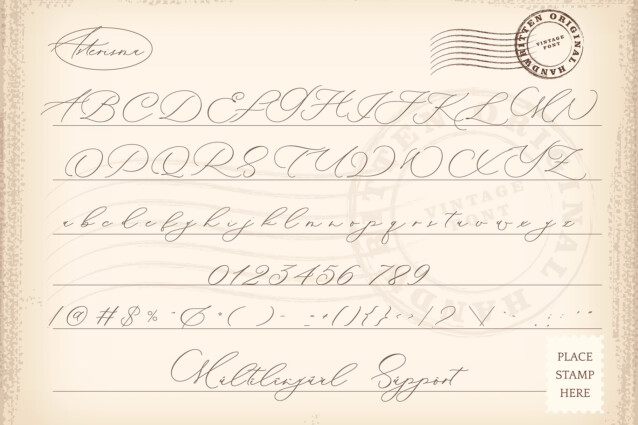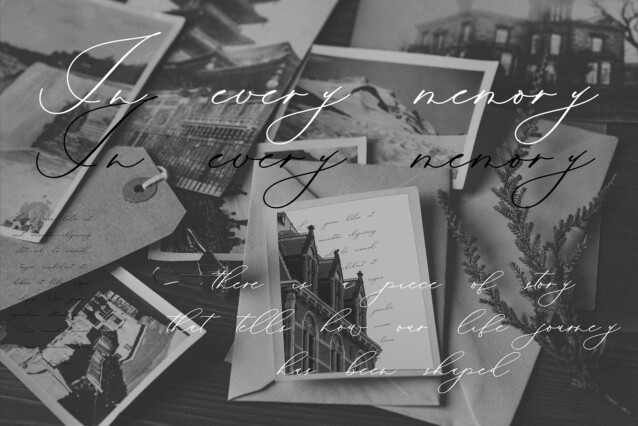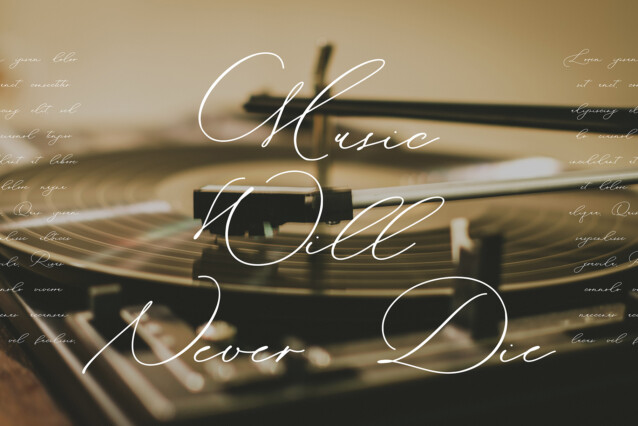
Asterisma Font is a simple and signature display font. So perfect for you who needs a typeface for logo designs, magazine, social media, brochure, and many more.